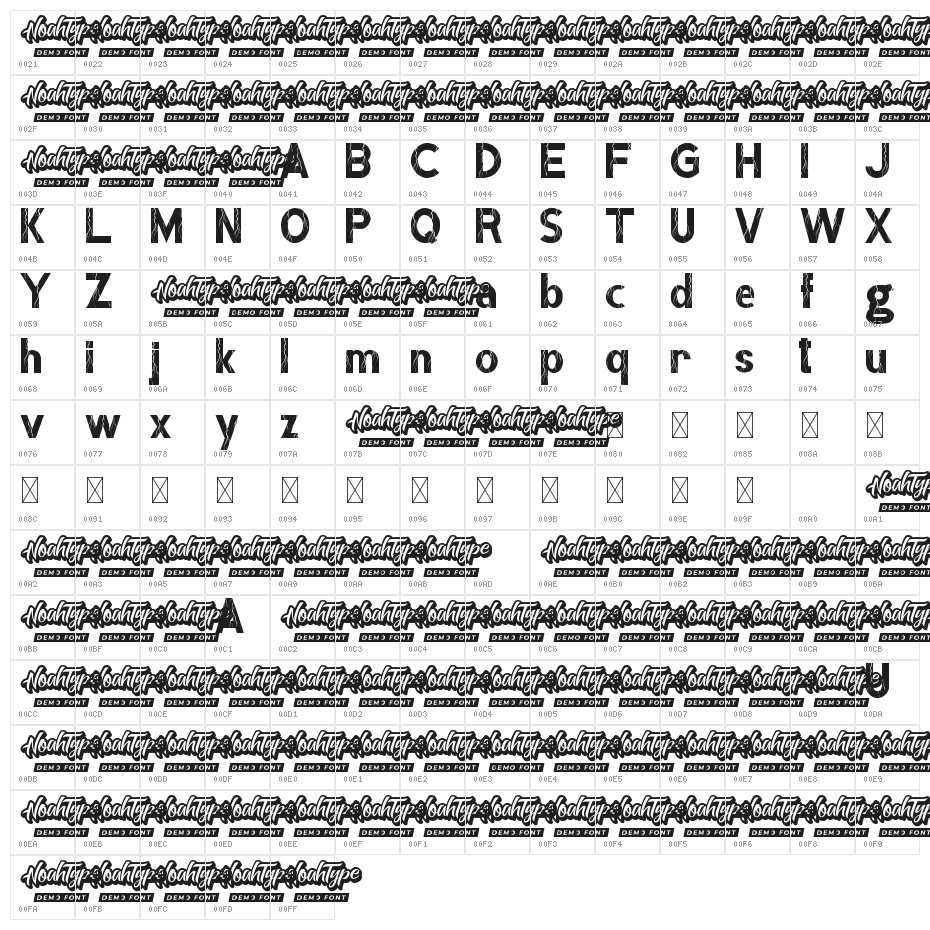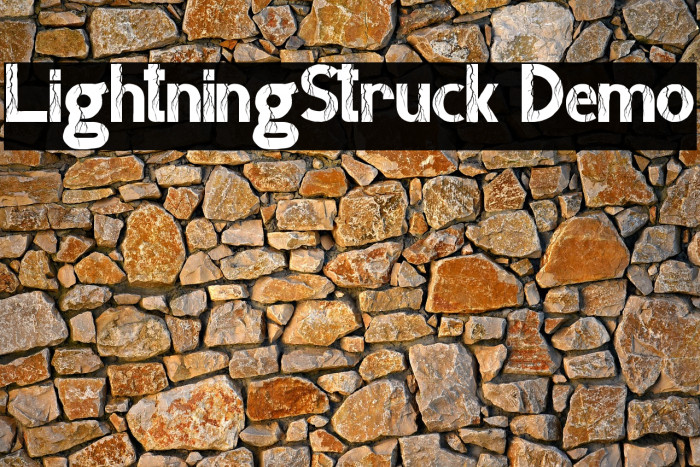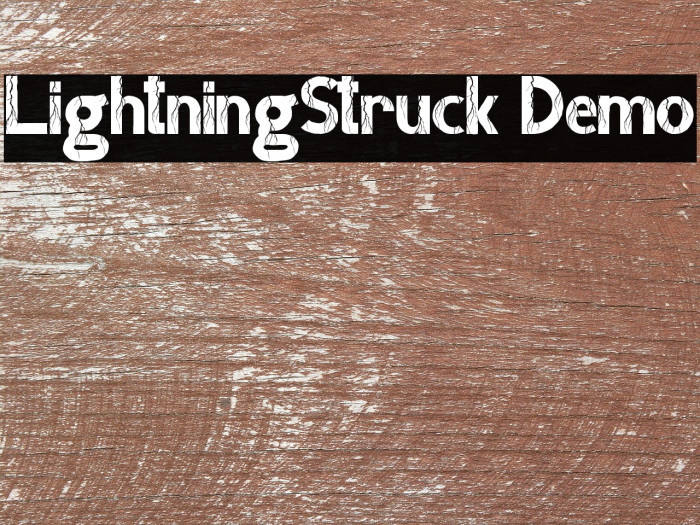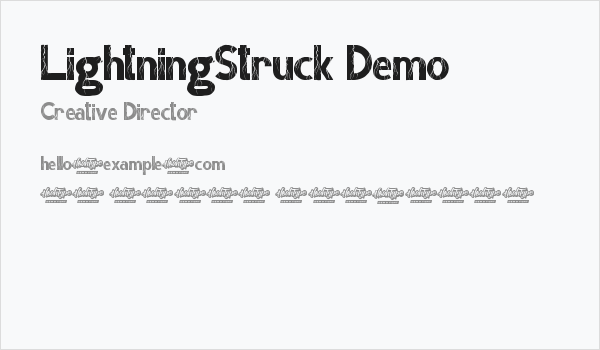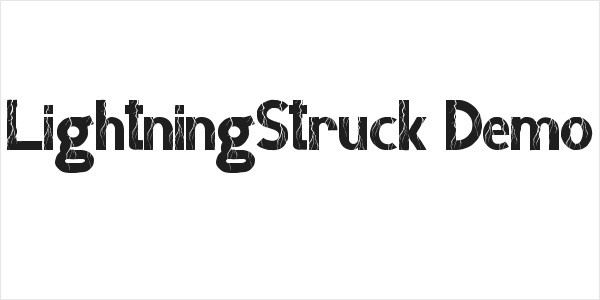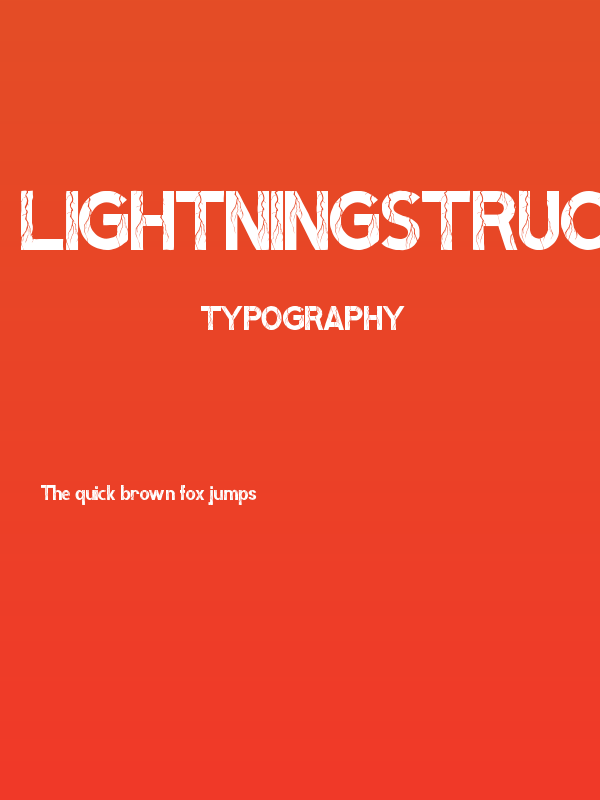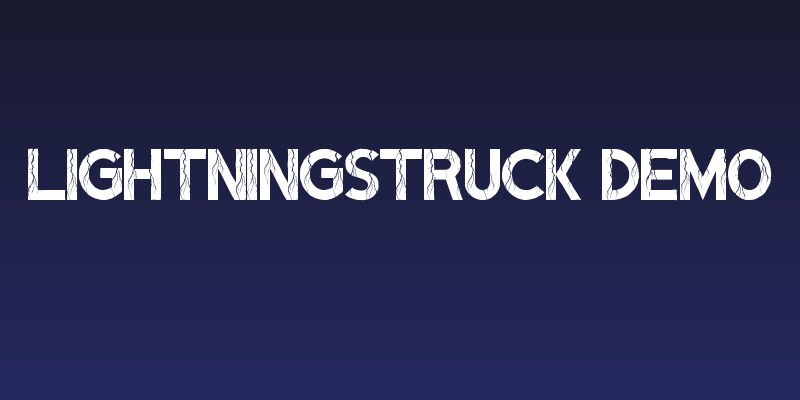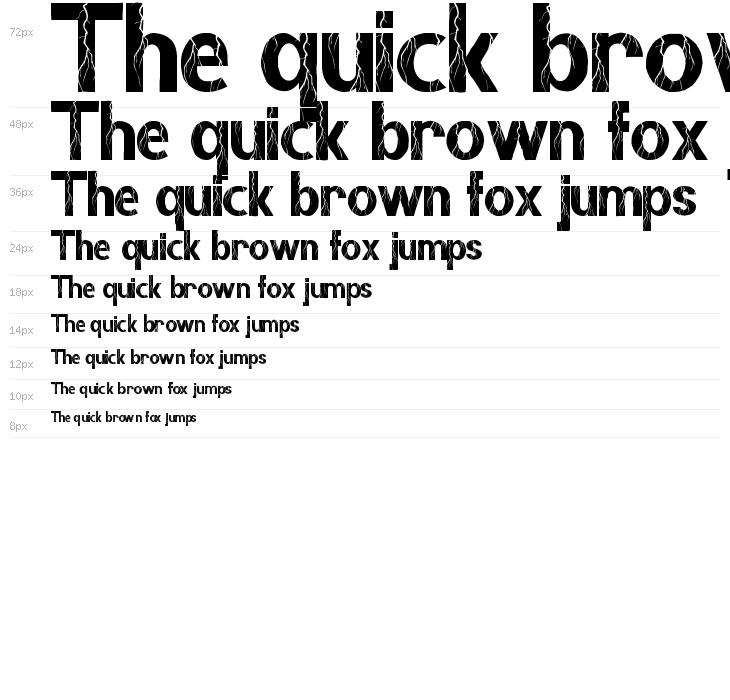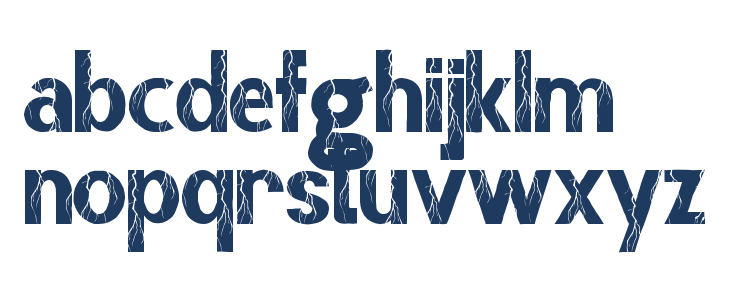
LightningStruck Demo Font
LightningStruck Demo Description
This font features a bold and striking design with a distressed, lightning-like texture running through each character. The uppercase and lowercase letters maintain a consistent width and weight, creating a cohesive appearance. The jagged, electrified pattern adds a dynamic and energetic feel, making it ideal for attention-grabbing designs. The font's unique style is both modern and edgy, perfect for projects that require a bold statement. The characters are well-defined, ensuring readability despite the decorative elements.
| Overall Style | Modern, Edgy |
| Proposed Projects | Ideal for music album covers, event posters, video game titles, and branding that requires a bold, energetic look. |